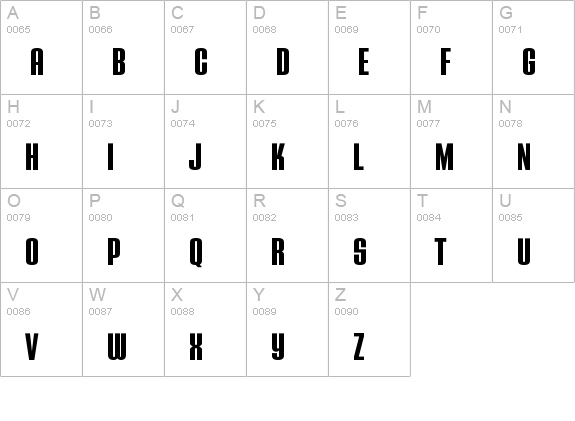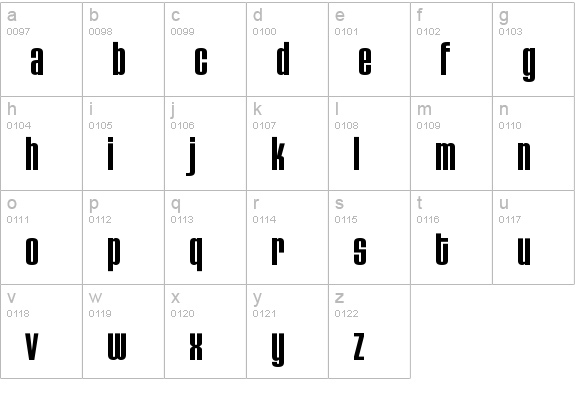
HouseGothicHG23Cond BOLD4 Font Details
HouseGothicHG23Cond BOLD4 is a strong, high-contrast variant in the HouseGothicHG23Cond typeface family \xE2\x80\x94 well suited to headlines, attention-grabbing titles, and strong calls-to-action.
HouseGothicHG23Cond BOLD4 is a striking and impactful display font that exudes a sense of strength and modernity. With its bold and angular letterforms, this font is perfect for making a statement in headlines, titles, and other design projects that require a strong typographic presence. The condensed style further enhances its boldness, making it ideal for creating eye-catching designs that demand attention. The HouseGothicHG23Cond BOLD4 font is not only visually appealing but also versatile, easily adaptable to various design themes and styles. Whether you're working on branding, advertising, or editorial projects, this font will add a touch of bold sophistication to your creations. Best of all, HouseGothicHG23Cond BOLD4 is freely available to download at FontsMarket.com, allowing you to access this powerful font for your design projects without any cost. Don't miss out on the opportunity to enhance your designs with the bold and impactful HouseGothicHG23Cond BOLD4 font today!